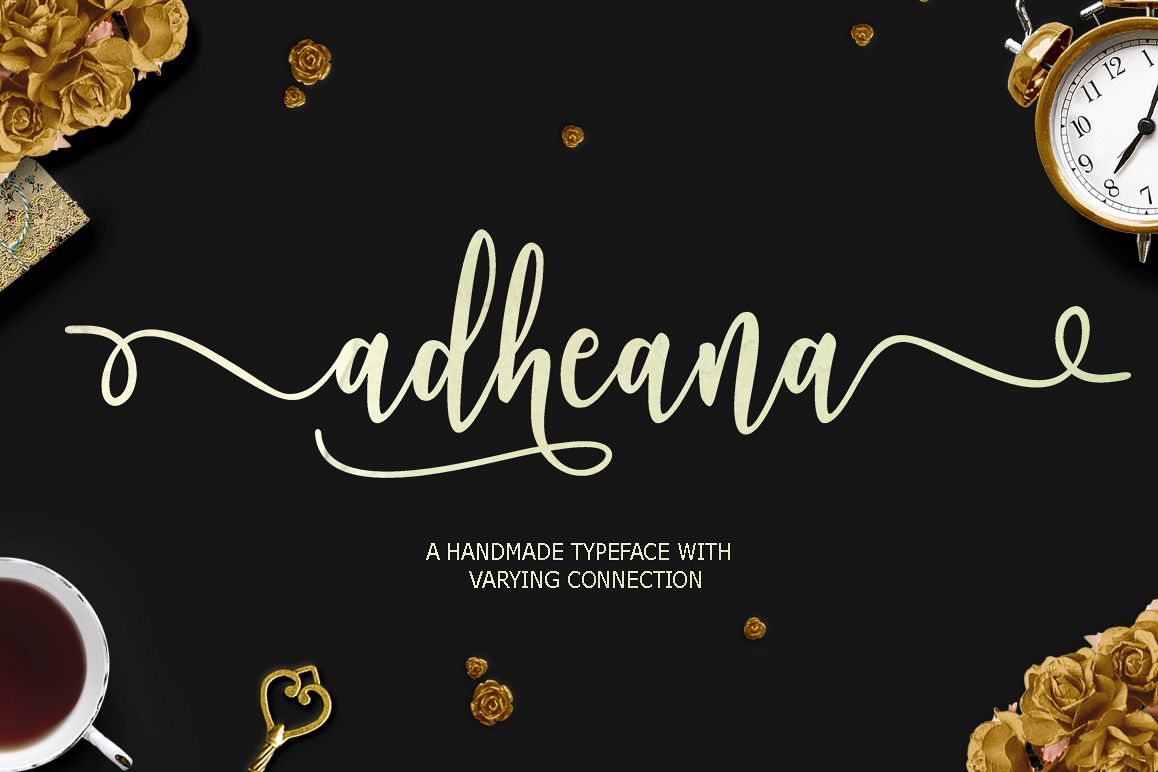
Adheana Script
Adheana Script is a hand brushed font created with a brush and ink, bold and irregular baseline. Contains a complete set of lowercase, uppercase, alternates, ligatures, punctuation, numbers, and multilingual support.